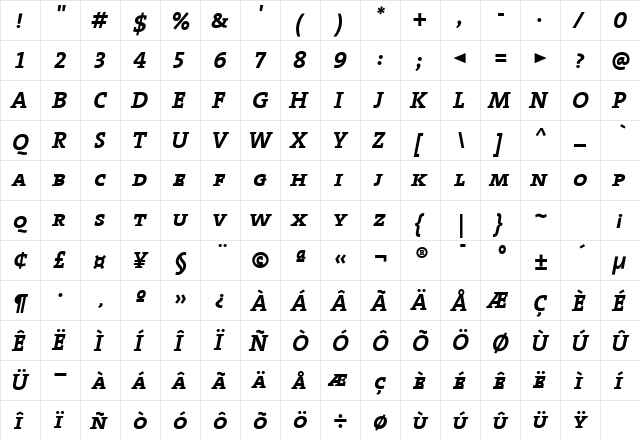
TheSerifCaps Bold Font Preview
TheSerifCaps Bold
Design Context for TheSerifCaps Typeface
TheSerifCaps brings classic typographic sensibility to the table — its serifs and measured letterforms reflect centuries of print heritage. Its bold stroke weight gives it real presence on the page.